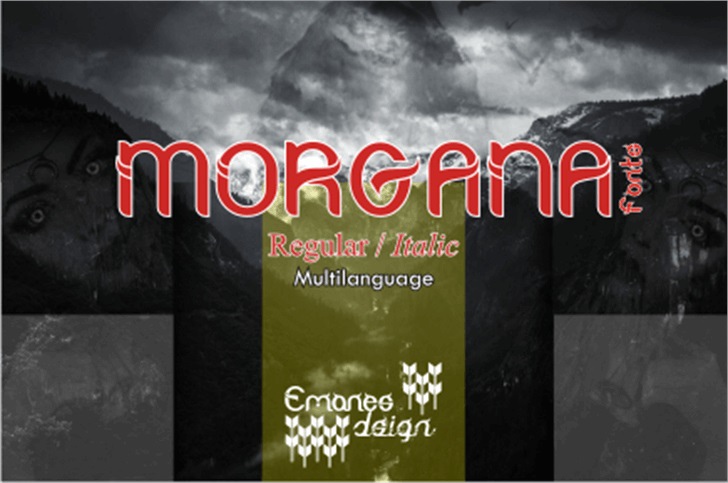
Morgana Font
Morgana Font is perfect for mystical fantasy branding, enchanting magic shops, mystical entertainment venues, witchcraft-themed marketing, fantasy gaming graphics, magical event invitations, supernatural storytelling, and enchanting otherworldly communications.
What makes Morgana Font exciting is its mystical enchantment that embodies ancient magic and supernatural power with otherworldly sophistication and arcane authenticity. The font features ethereal letterforms with mystical proportions and enchanted character that evoke spell books, crystal balls, and the mysterious allure of ancient magic and supernatural wisdom. Its distinctive mystical styling and magical appeal communicate mystery, power, and enchantment, making every message feel woven with magic spells and touched by the ethereal beauty of supernatural forces and mystical enchantment.
The Morgana Font family includes regular weight with uppercase and lowercase letters, numerals, punctuation marks, and special characters. Premium versions often feature mystical alternates and magical elements that enhance the enchanted, supernatural aesthetic perfect for fantasy and occult applications.
This enchanting mystical typeface brings instant magic and supernatural credibility to any fantasy-themed project. Morgana Font Free Download offers exceptional value for mystical businesses and fantasy entertainment organizations seeking to communicate magical power, supernatural authenticity, and enchanted mystique to fantasy enthusiasts and mystical audiences.
The magical character of Morgana Font makes it particularly valuable for occult shops, fantasy entertainment venues, and mystical service providers. Its excellent readability ensures magical messaging and supernatural communications remain clear while maintaining the distinctive enchanted aesthetic that appeals to audiences seeking authentic mystical experiences and supernatural enchantment.
Fantasy entertainment marketers appreciate how Morgana Font effortlessly conveys mystical authenticity and magical power. The font's ethereal proportions and enchanted details create compelling brand materials that establish connections with audiences who value supernatural mystery, magical traditions, and the enchanting beauty of mystical arts and otherworldly wisdom.
The versatile enchantment of this typeface extends to fantasy literature, mystical education, and supernatural entertainment where magical authenticity enhances mystical credibility and otherworldly appeal. Morgana Font Free Download provides creative professionals with an essential tool for developing memorable, magic-driven designs that resonate with audiences who embrace supernatural mystery, mystical power, and the ethereal enchantment of magical realms in their fantasy and mystical experiences.